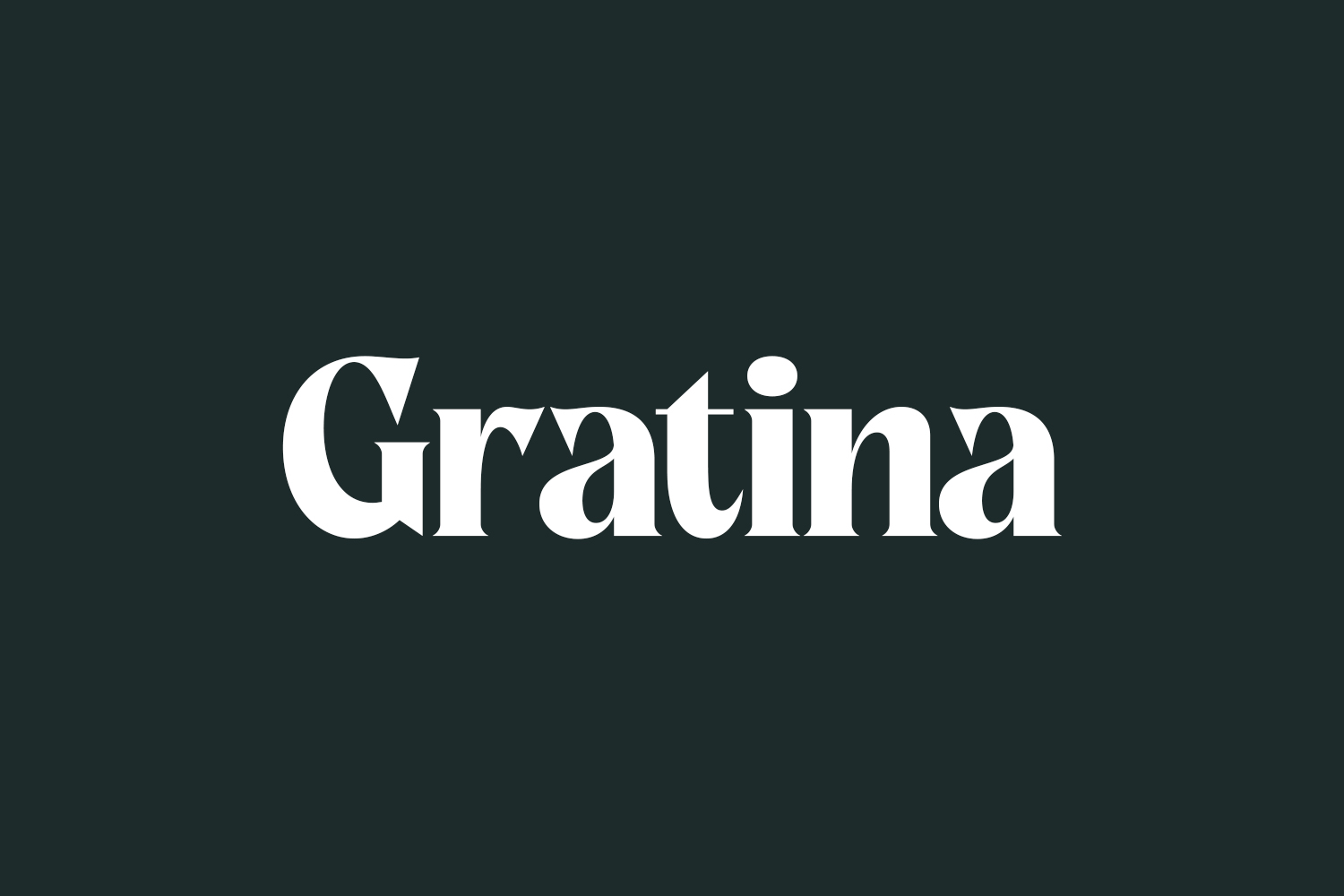
Gratina Free Font is a minimalist and clean font that is the perfect choice for enhancing a variety of creative projects, from book covers and magazines to invitations and social media posts. Gratina Free Font is free for personal use only. Please purchase the full version for commercial use.